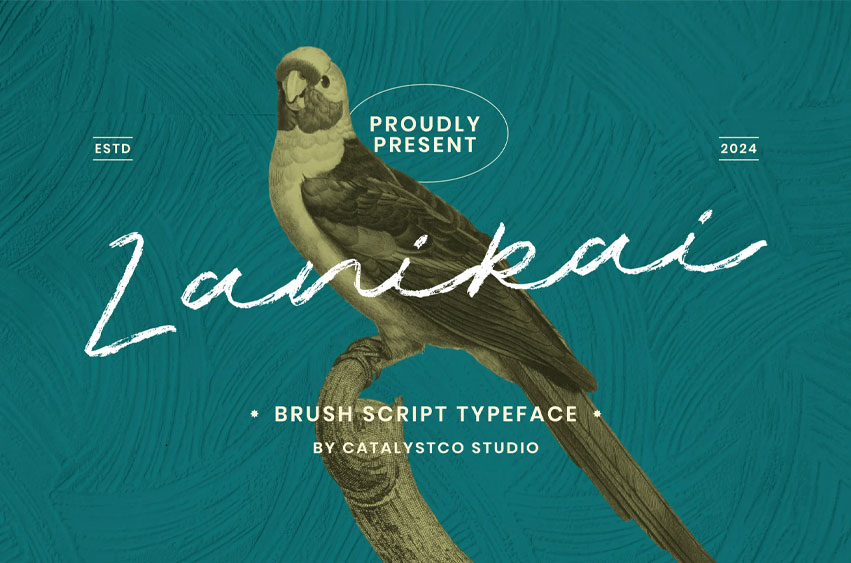
Lanikai Font is a natural brush script typeface inspired by handwritten calligraphy and organic movement. Featuring irregular baselines, fluid strokes, and expressive ligatures, Lanikai captures the rhythm of spontaneous writing. It includes full uppercase and lowercase sets, numerals, punctuation, and multilingual support. Ideal for authentic and artistic expressions, this typeface brings warmth and personality to both digital and print layouts. Lanikai is optimized for editorial design, packaging, and social media graphics, offering dynamic legibility and a handcrafted aesthetic.